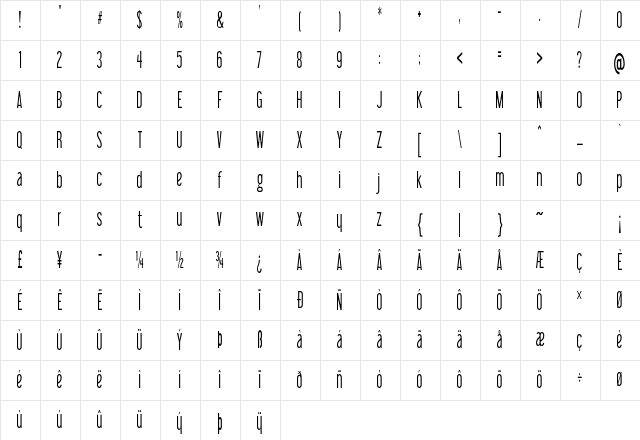
Impasto Light Extra-condensed Regular
Style: Extra-condensed Regular
Impasto Light Family
Impasto Light Extra-condensed Regular
Design Context for Impasto Light
Impasto Light is a composed and adaptable typeface that performs quietly and consistently across a wide range of design contexts. Its slender proportions lend an understated elegance to any composition. Its narrow stance lets it pack a punch even in space-constrained designs.